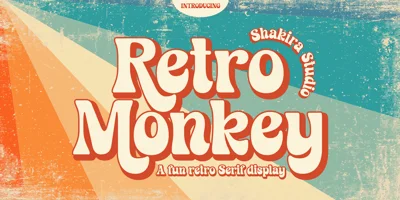
Retro Monkey Font
Retro Monkey Font is ideal for playful design projects including vintage toy stores, retro gaming arcades, nostalgic entertainment venues, throwback themed restaurants, vintage collectible shops, classic cartoon productions, retro advertising campaigns, and fun nostalgic marketing initiatives. This amusing typeface works perfectly for vintage pinball arcades, classic toy manufacturers, retro candy stores, nostalgic themed parties, and projects that celebrate the whimsical charm and playful energy of vintage entertainment culture.
What makes Retro Monkey Font exciting is its playful vintage character that perfectly captures the essence of nostalgic fun and retro entertainment charm. The font features quirky letterforms with vintage styling that reflects the whimsical energy and innocent playfulness of classic entertainment eras. Its fun design elements embody the spirit of nostalgic entertainment and vintage playfulness, making it perfect for projects that need to convey fun, nostalgia, and connection to retro culture. The carefully crafted playful proportions create an atmosphere of vintage sophistication and retro authenticity.
Retro Monkey Font comes in multiple family variations including playful, vintage, quirky, and nostalgic styles. Each weight maintains the distinctive retro character while offering different levels of fun intensity and vintage presence. The font family includes retro alternates, playful ligatures, and vintage variations that provide designers with comprehensive options for creating truly entertaining and authentically vintage typographic compositions that celebrate nostalgic excellence.
Whether you're designing retro branding, creating nostalgic marketing materials, or developing vintage promotional graphics, Retro Monkey Font provides the perfect typographic foundation for projects that celebrate vintage excellence and retro sophistication. This remarkable typeface transforms ordinary text into compelling expressions of nostalgic wisdom and vintage charm. Download this playful font today and entertain your design projects with the retro authenticity and vintage playfulness that captures the essential spirit of classic entertainment and nostalgic fun.